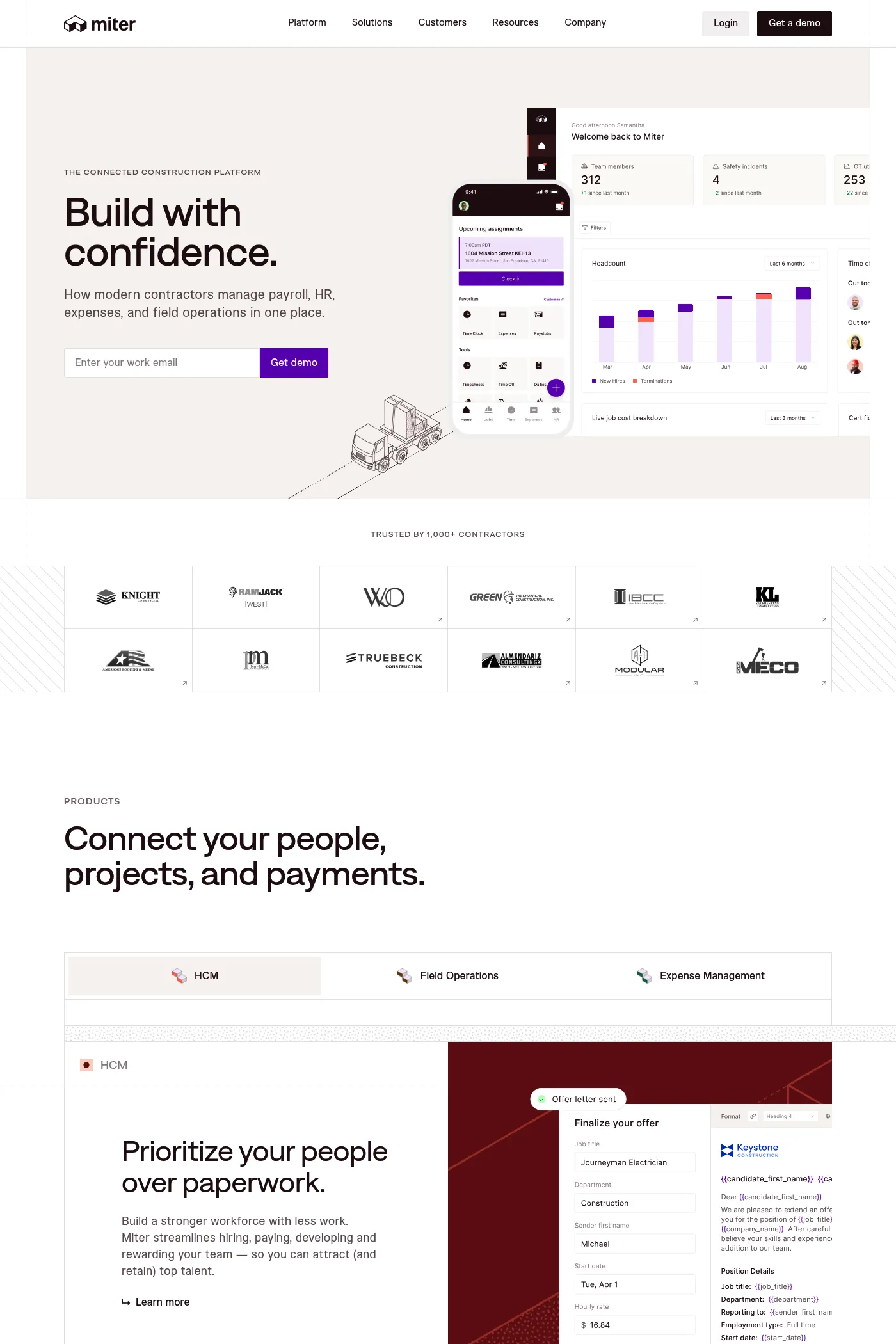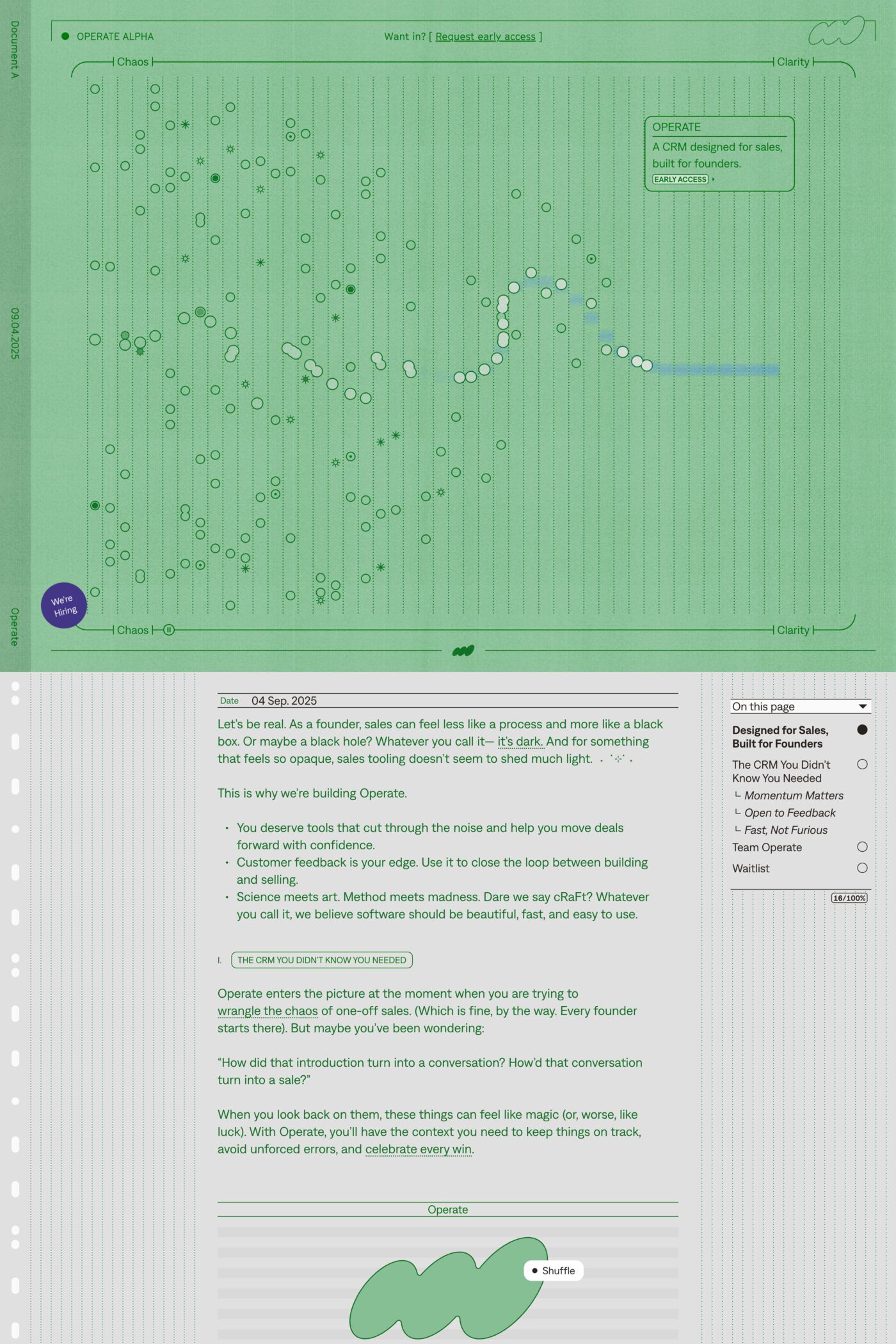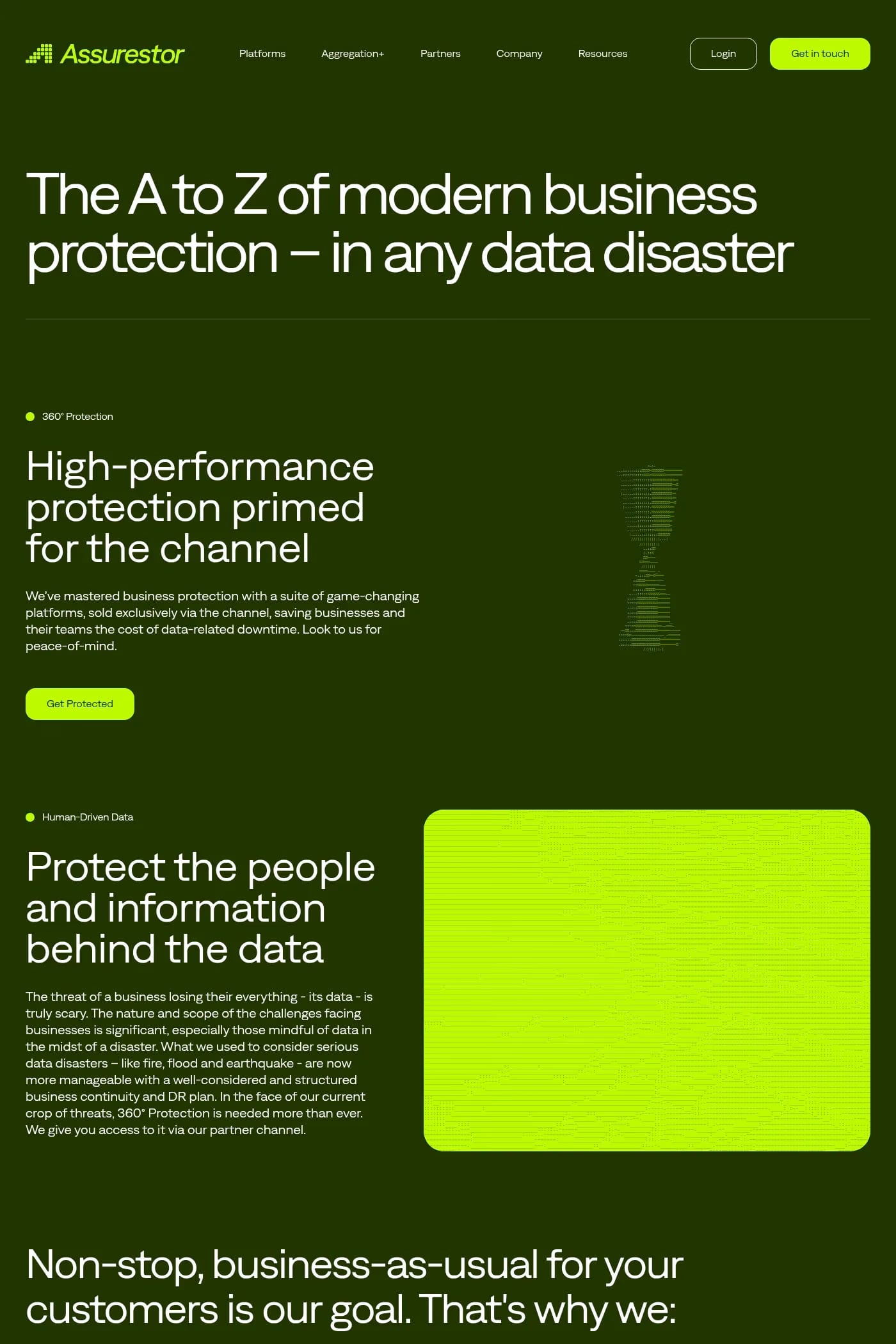
Denim is a serif typeface from Displaay Type Foundry.
The sans-serif typeface “Denim” fits any situation. It’s great for smaller texts, but if you want to make a big splash, let it shine in large headlines! Moreover, thanks to the flattened overshoots, it sits perfectly on the line. These details make the typeface really special, which is supported by other features that bring a certain technical aspect while maintaining a humanistic feel.